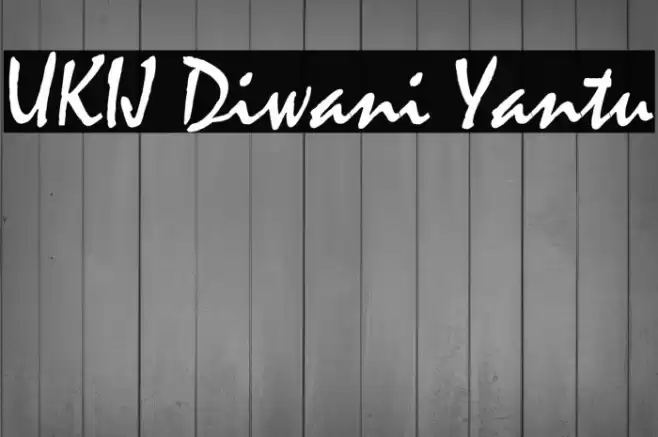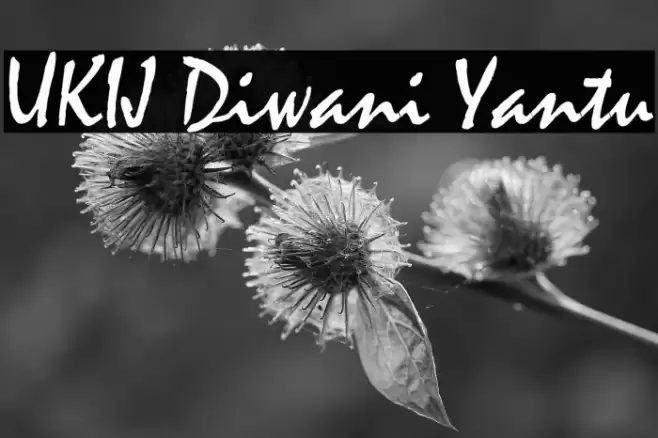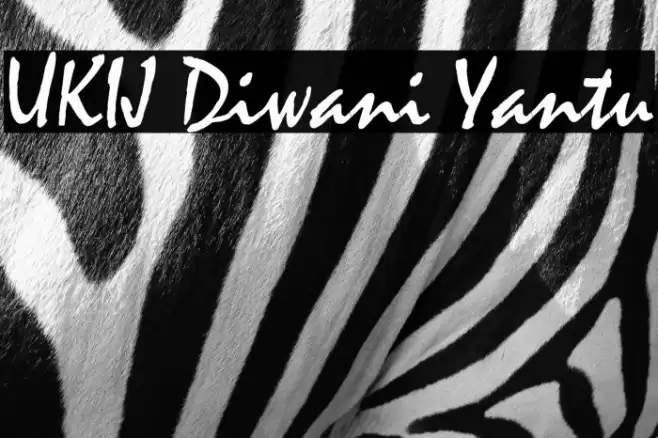
UKIJ Diwani Yantu Font
UKIJ Diwani Yantu Description
This font features a dynamic and expressive handwritten style, characterized by its fluid and organic strokes. The letters exhibit a natural flow, with varying thickness that adds a sense of movement and energy. The uppercase letters are bold and prominent, while the lowercase letters maintain a consistent, flowing script. Numbers and special characters are crafted with the same lively touch, ensuring a cohesive look across all elements. The overall appearance is both artistic and approachable, making it suitable for creative and informal applications.
A dynamic handwritten font with fluid, expressive strokes from Serif fonts.
- Proposed Projects: Ideal for greeting cards, invitations, personal branding, and artistic projects.
- Use Case: Logos, Headlines, Artistic projects